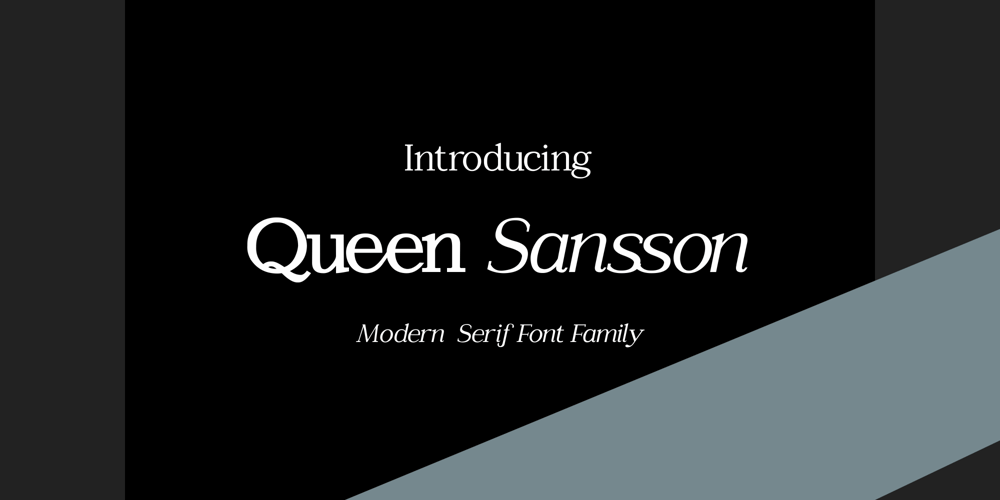
Queen Sansson Font Family was designed by Zamjump and published by Zamjump. Queen Sansson contains 4 styles and family package options. Introducing “Queen Sansson” – a Serif font families with modern and nostalgic. This font is both modern and nostalgic and works great for logos, mastheads and pull quotes.Inclouded :- Queen Sansson regular- Queen Sansson italic- Queen Sansson Bold- Queen Sansson Bold Italic- Multilanguage